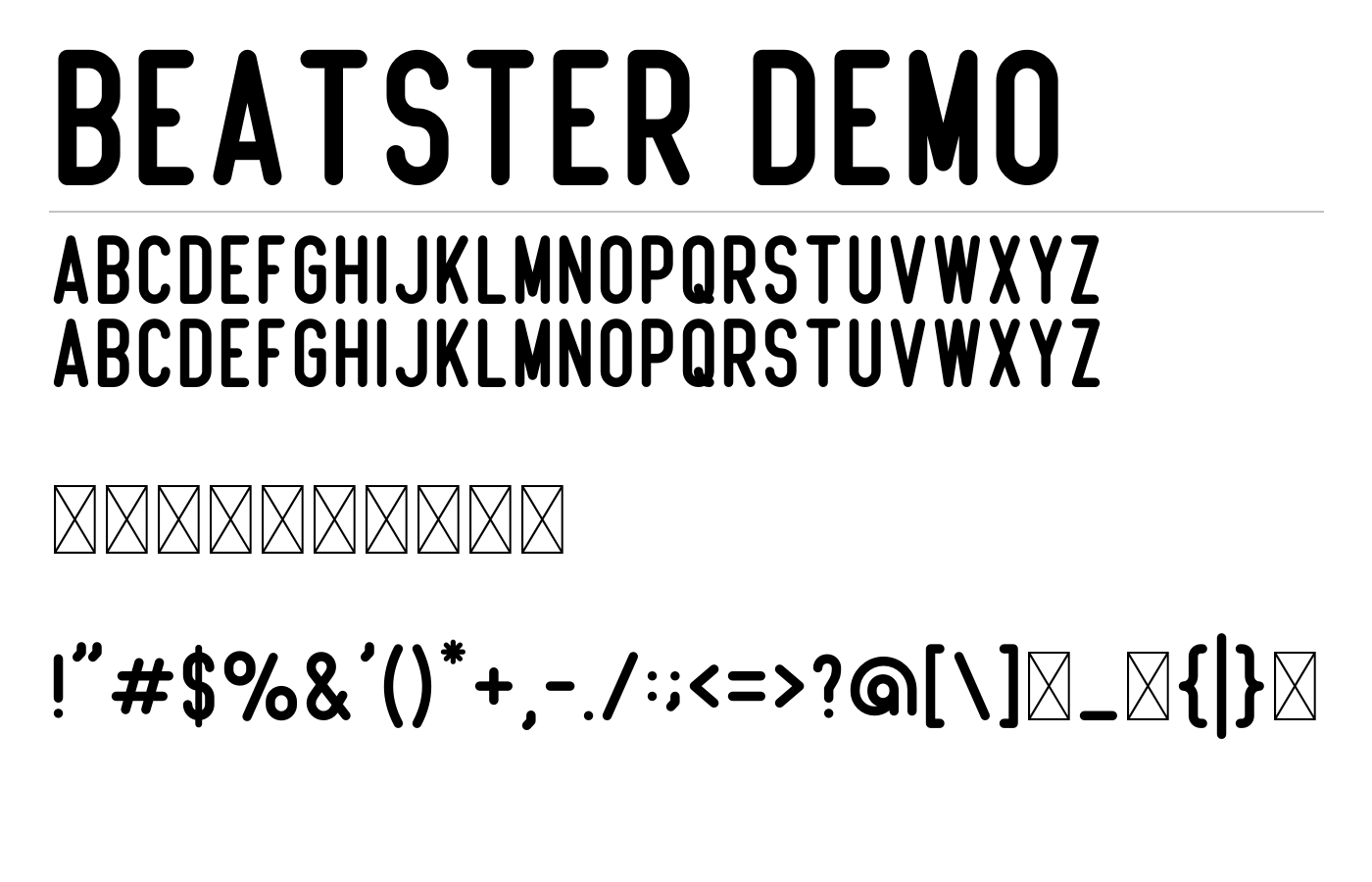
Beatster Demo is a tall, condensed sans serif font with a clean and modern feel. Its uniform strokes, rounded terminals, and single-story letterforms give it a friendly yet professional look, making it ideal for bold headlines, branding, and contemporary design projects that need strong visual impact without being overly aggressive. This font works well where space is limited but clarity and style are essential.
Beatster Demo Font